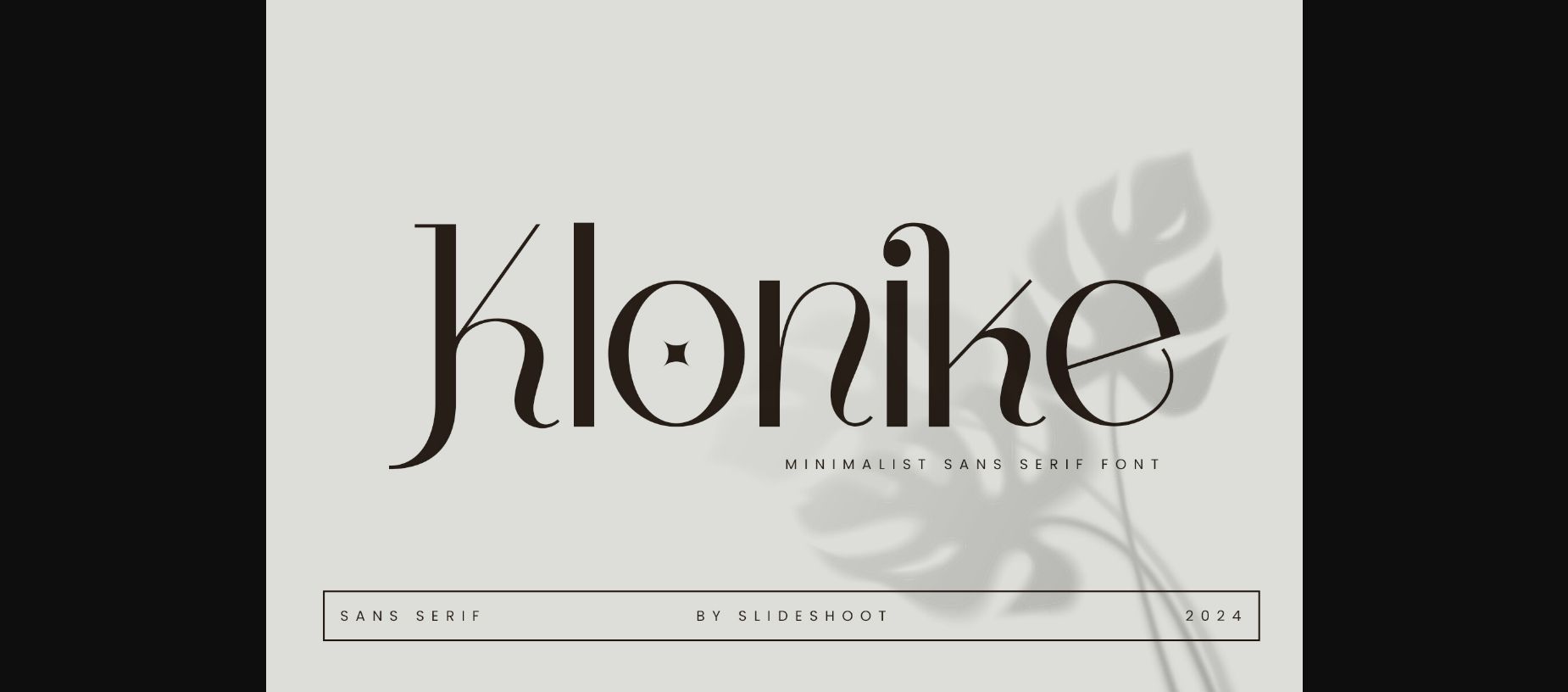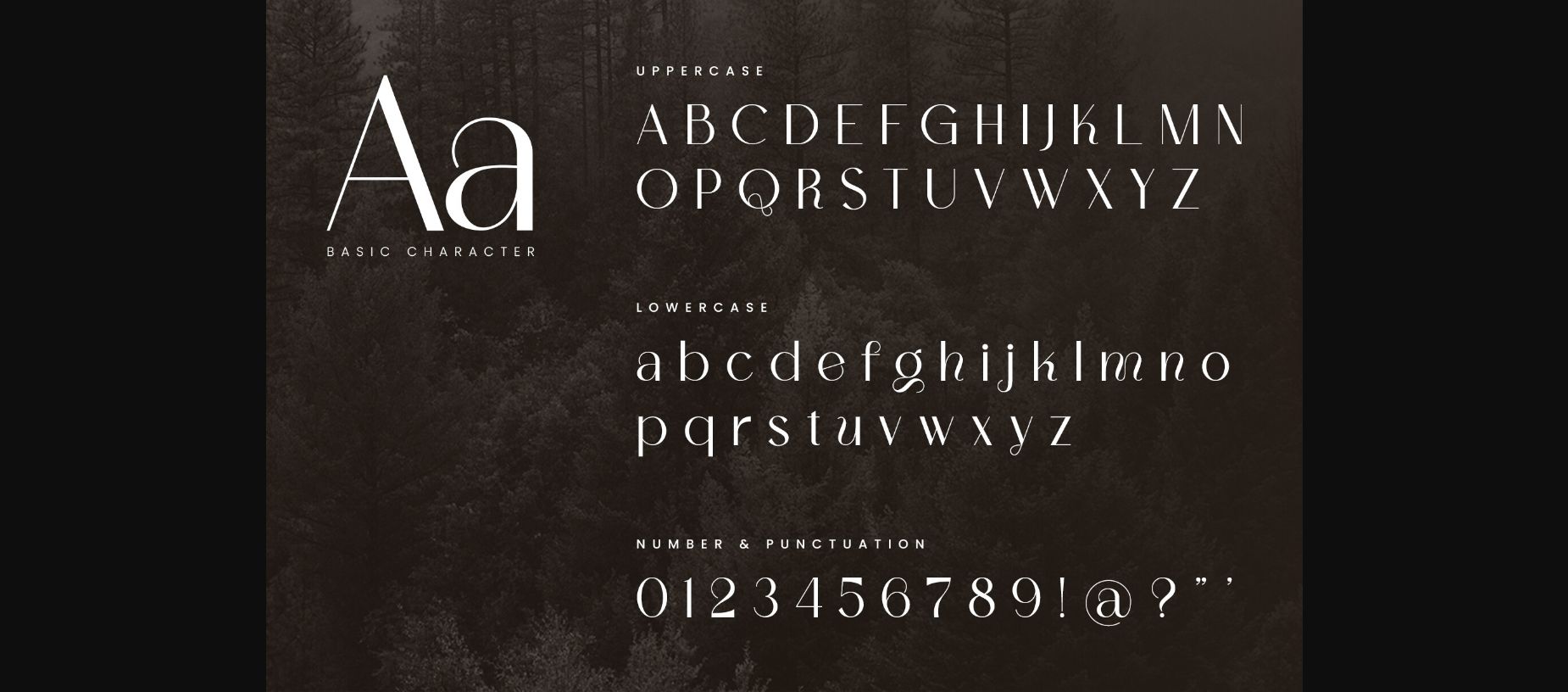
About Klonike Font
Klonike is a balanced, smooth, elegant and stylish sans serif font. It has a beautiful character and it fits perfectly with invitation card designs, company logos, movie titles, movie names, business cards, book titles, brand names and various other designs.